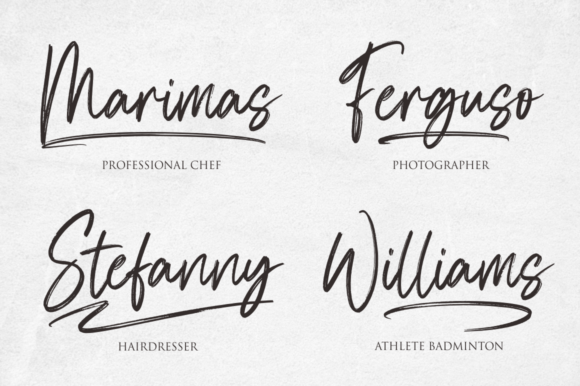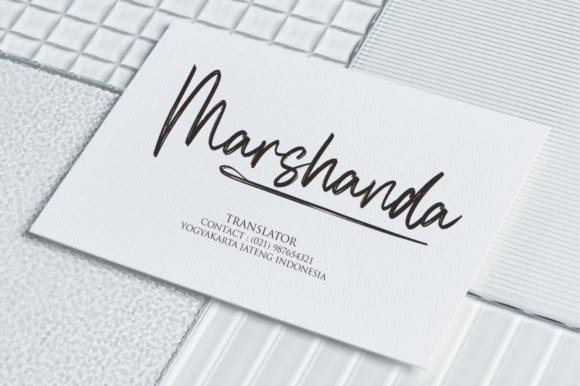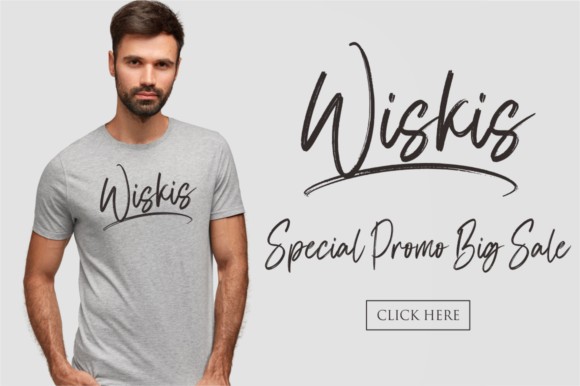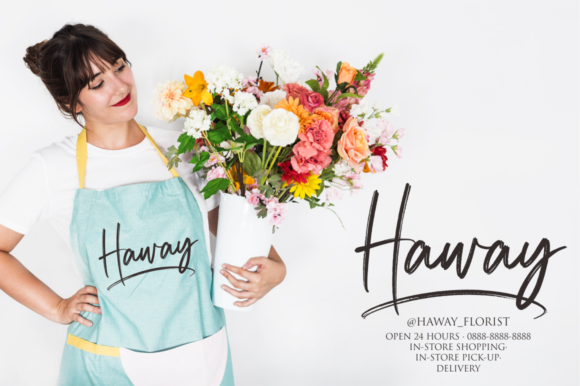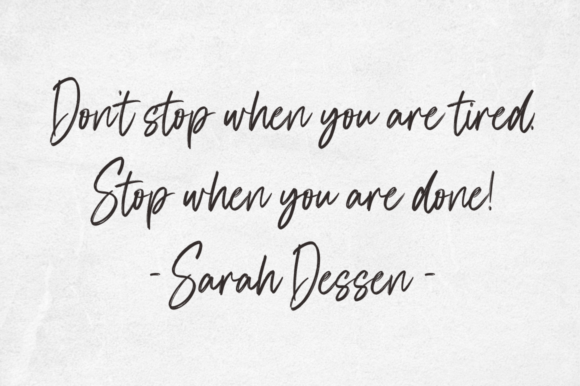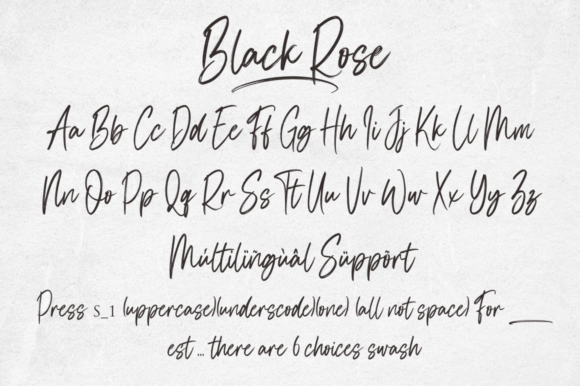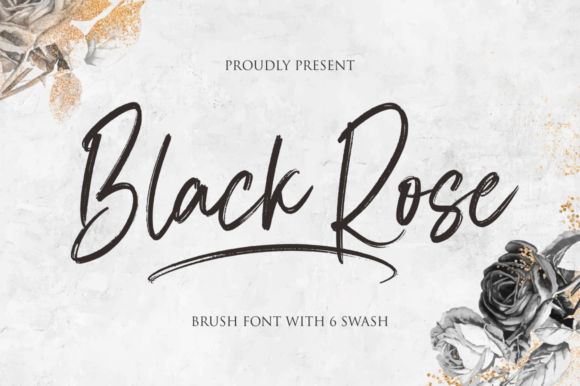
The Elegance of Black Rose Font: A Designer’s Delight
I’ll never forget the time I was working on a project for a client who wanted a elegant and sophisticated look. I had spent hours browsing through font libraries, but nothing seemed quite right. That was when I stumbled upon the Black Rose font. Its delicate, flowing script immediately caught my eye, and I knew I had found the perfect fit. In this article, I’ll share my experience with the Black Rose font, its features, and how to make the most of it in your designs.
- ✨ The elegant and flowing script makes it perfect for a wide range of designs, from wedding invitations to branding materials.
- ✅ The characters are beautifully balanced, making it easy to read and understand.
- 💫 The font comes with a range of OpenType features, including glyphs and stylistic alternates, which allow for endless creativity.
While the Black Rose font is a stunning addition to any design, there are a few things to keep in mind:
- ⚠️ Some of the more intricate details may not render well at smaller font sizes.
- 🤔 The font may not be the best choice for body text, as it’s more suited to headings and titles.
The Backstory of Black Rose Font
The Black Rose font was designed by a talented typographer who wanted to create a font that would evoke the elegance and sophistication of a bygone era. Inspired by traditional calligraphy, the designer carefully crafted each character to ensure that it was both beautiful and legible. The result is a font that is both timeless and versatile.
| Font Name | Black Rose Font |
| Author | NJStudio |
Q: What is the Black Rose font best used for?
A: The Black Rose font is best used for designs that require a touch of elegance and sophistication, such as wedding invitations, branding materials, and luxury packaging.
Q: Is the Black Rose font available in different languages?
A: The Black Rose font may not have full language support, but it does include a range of glyphs and OpenType features that allow for flexibility and creativity.